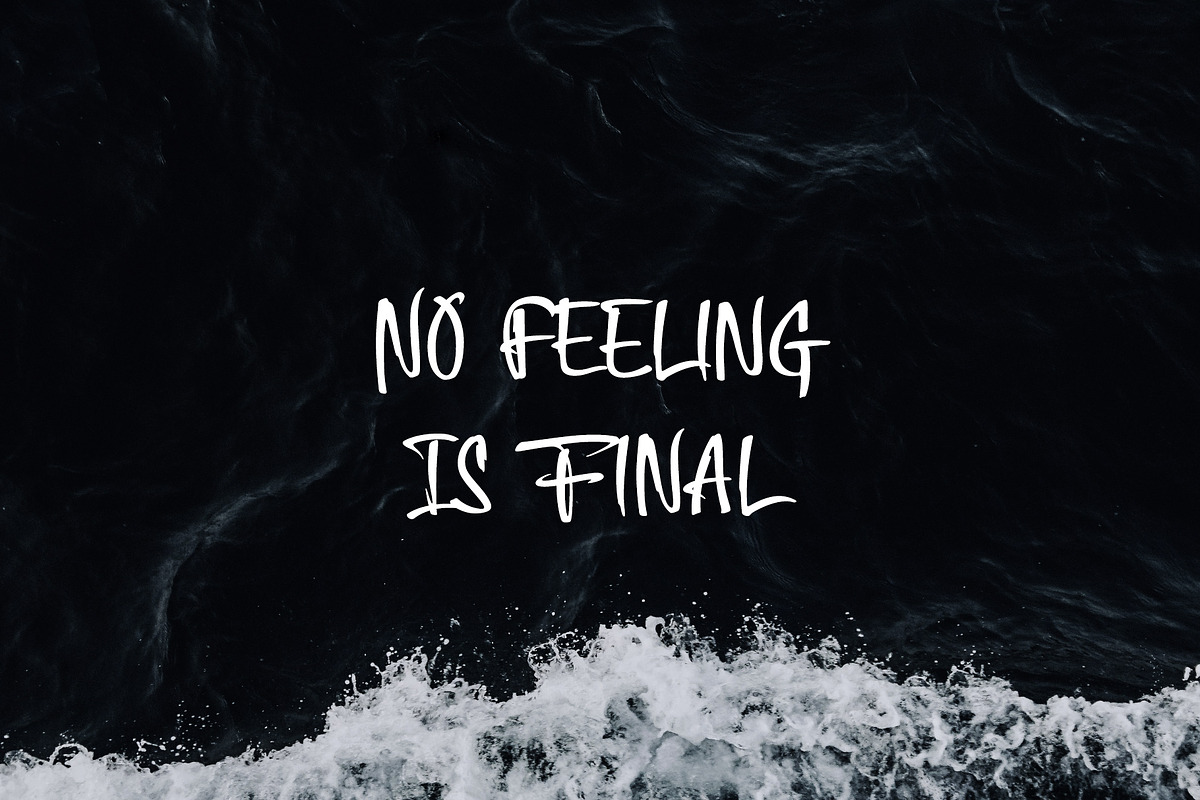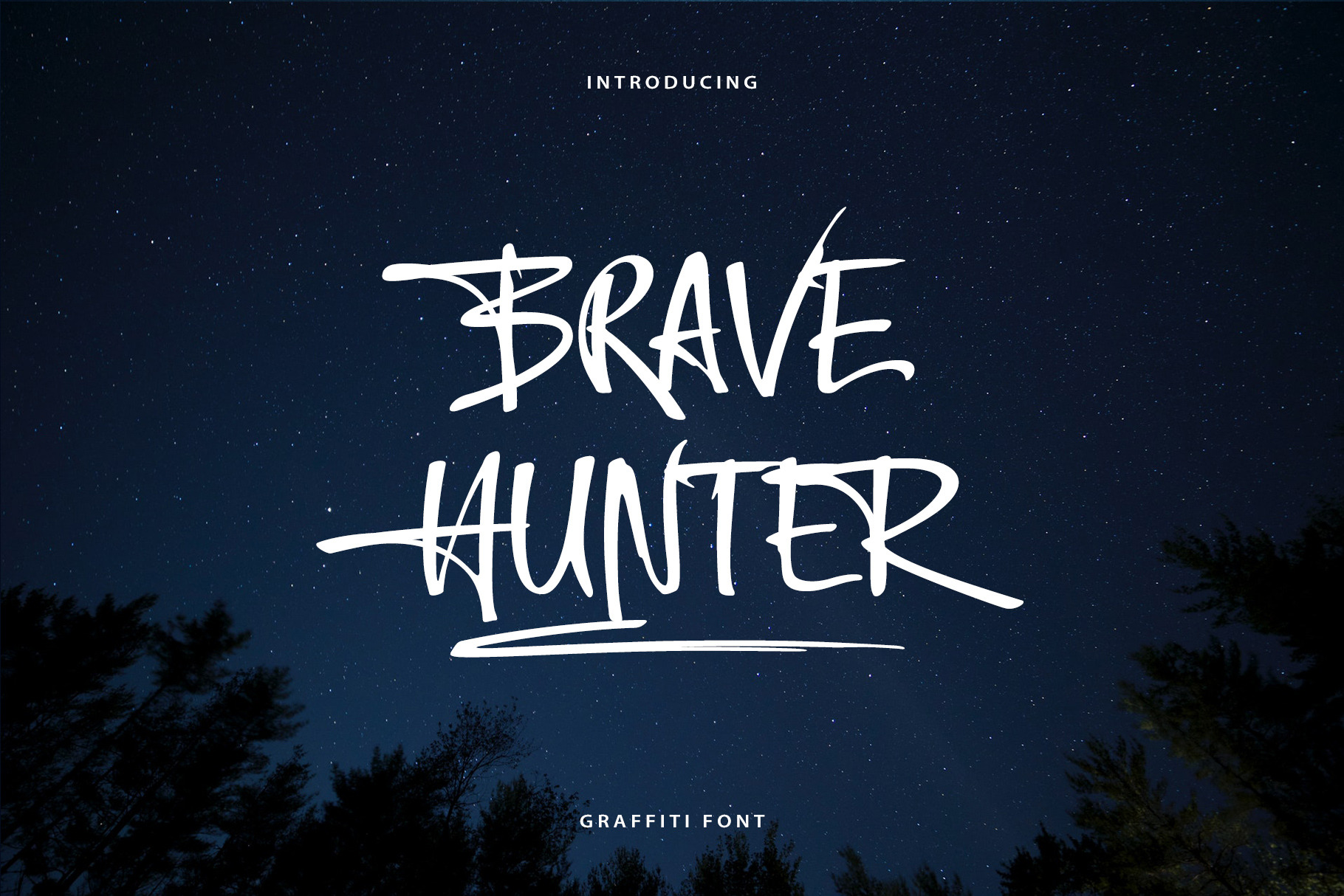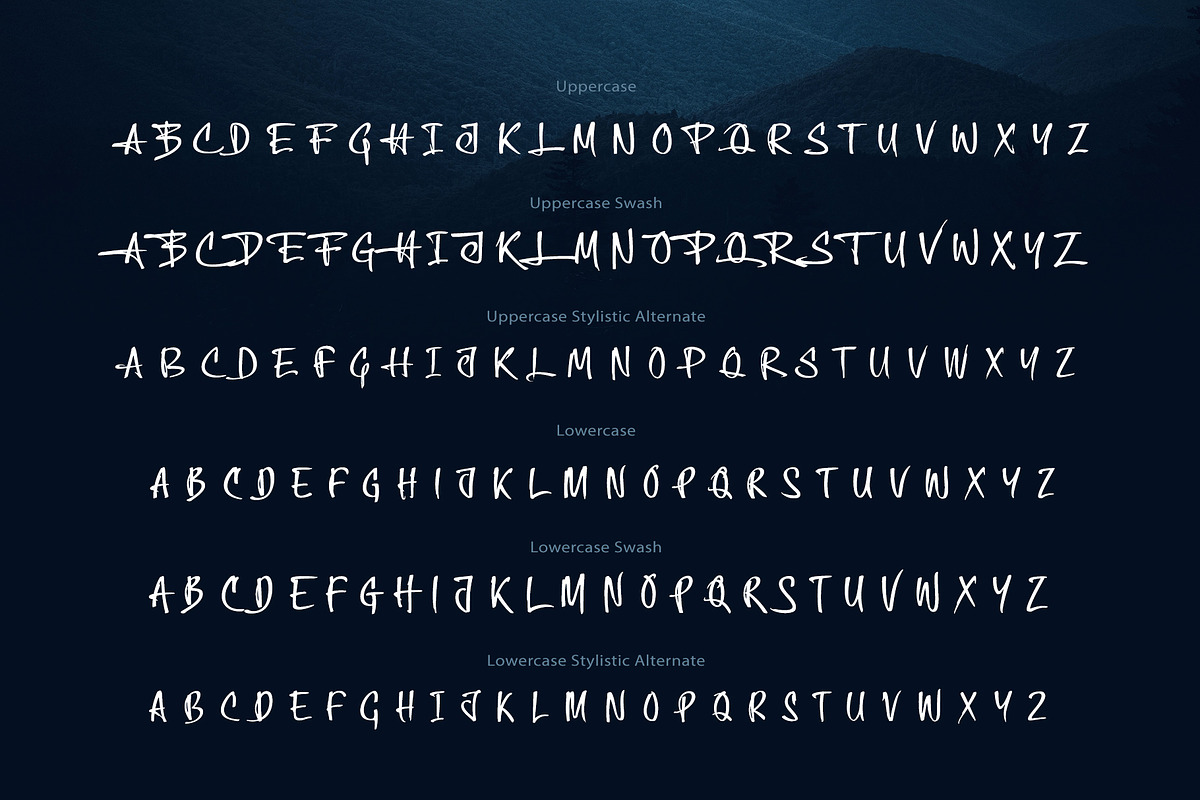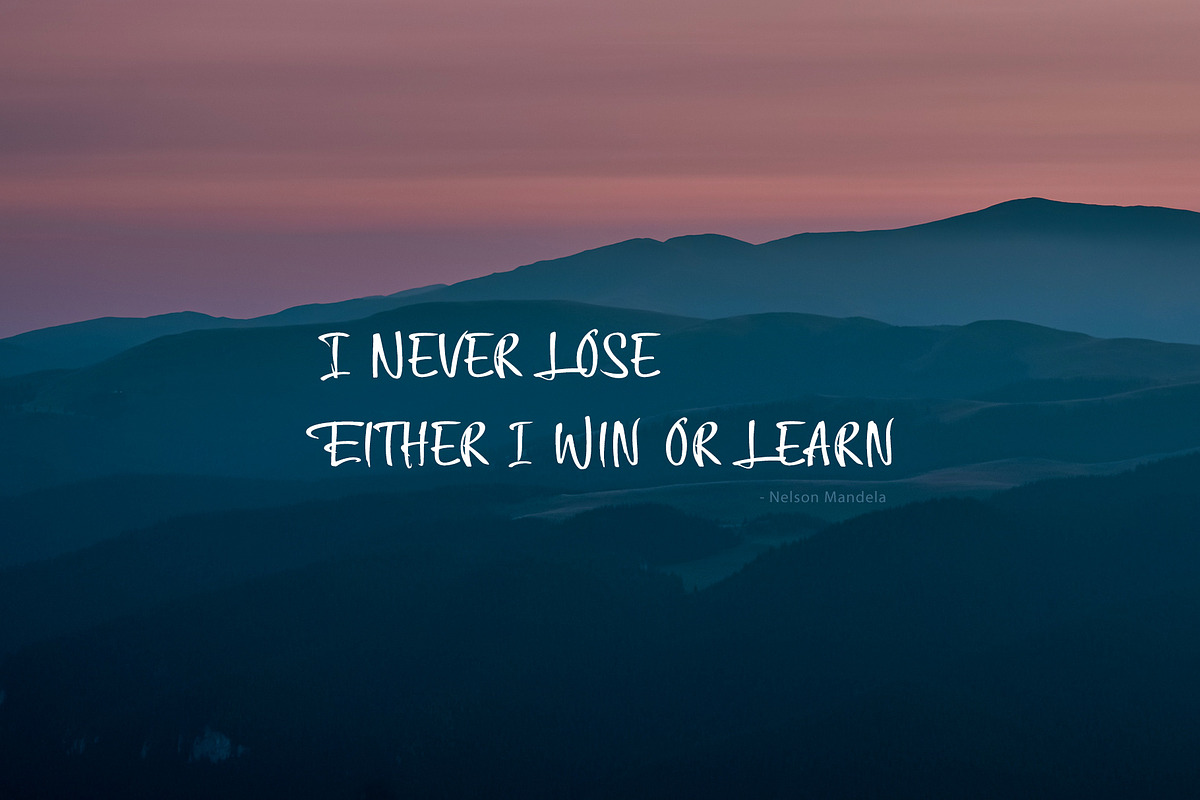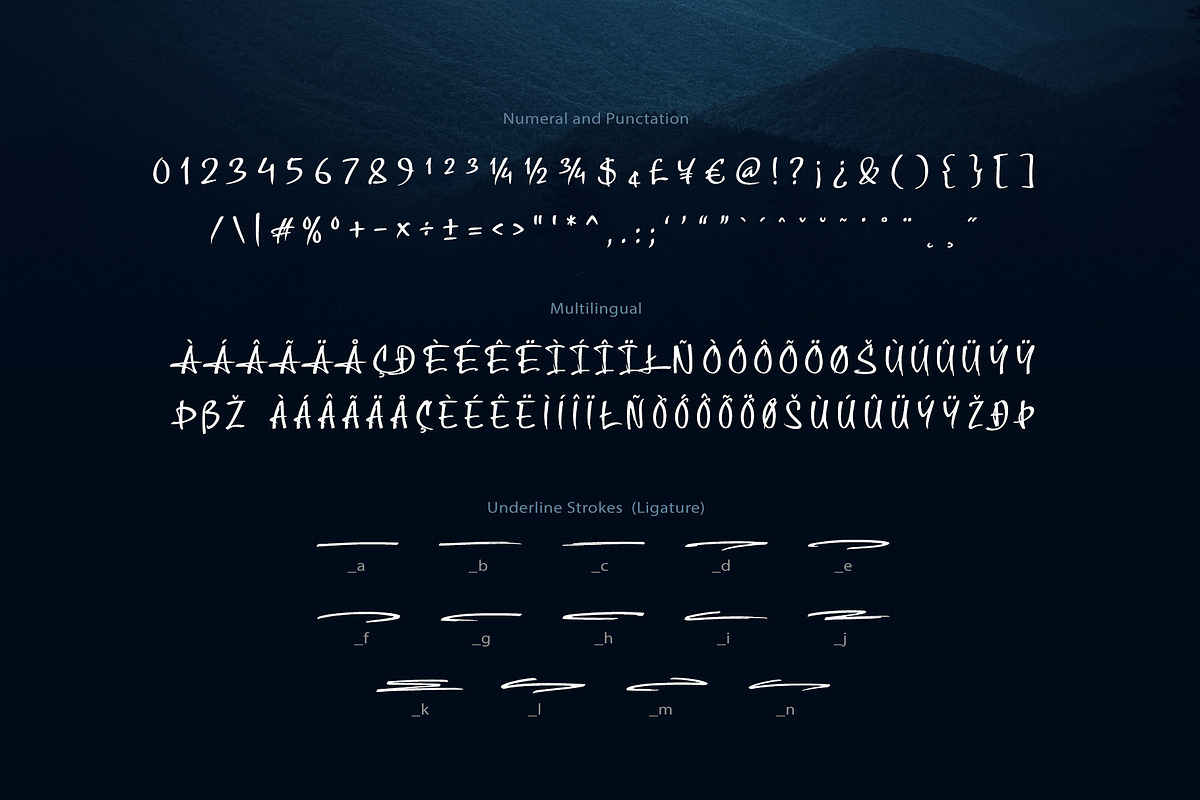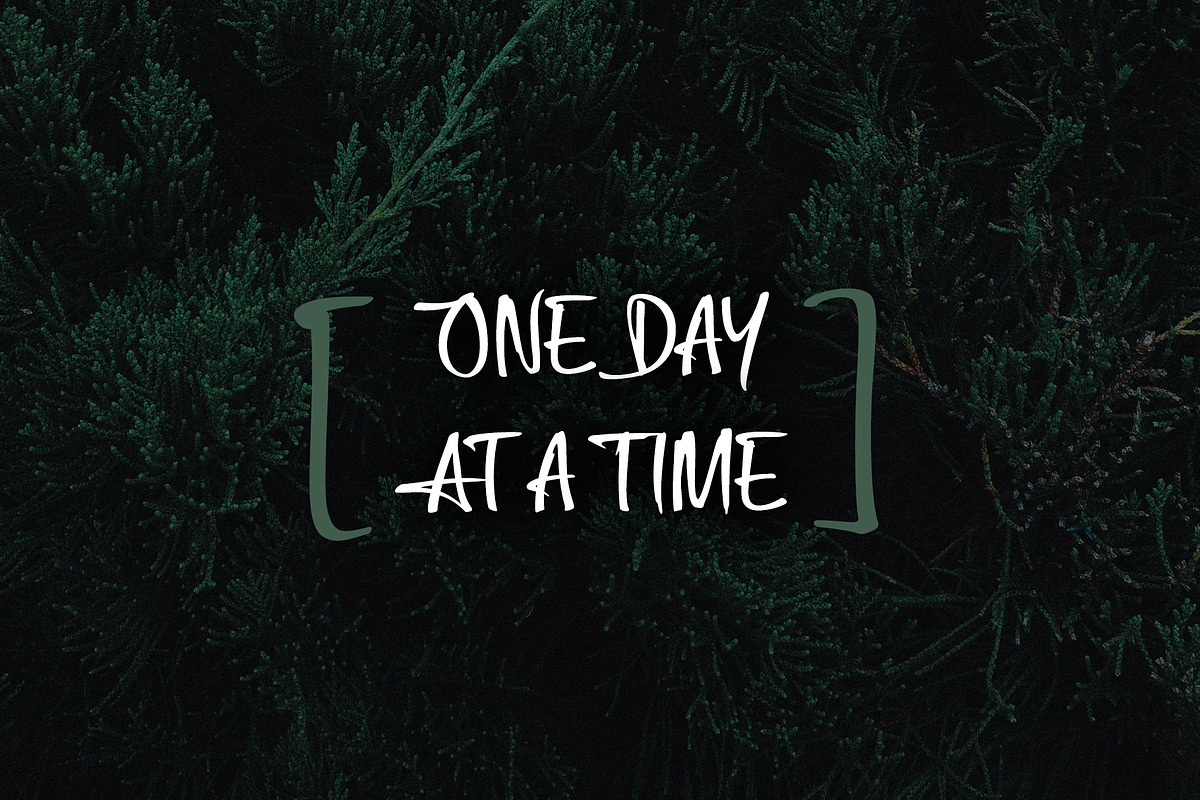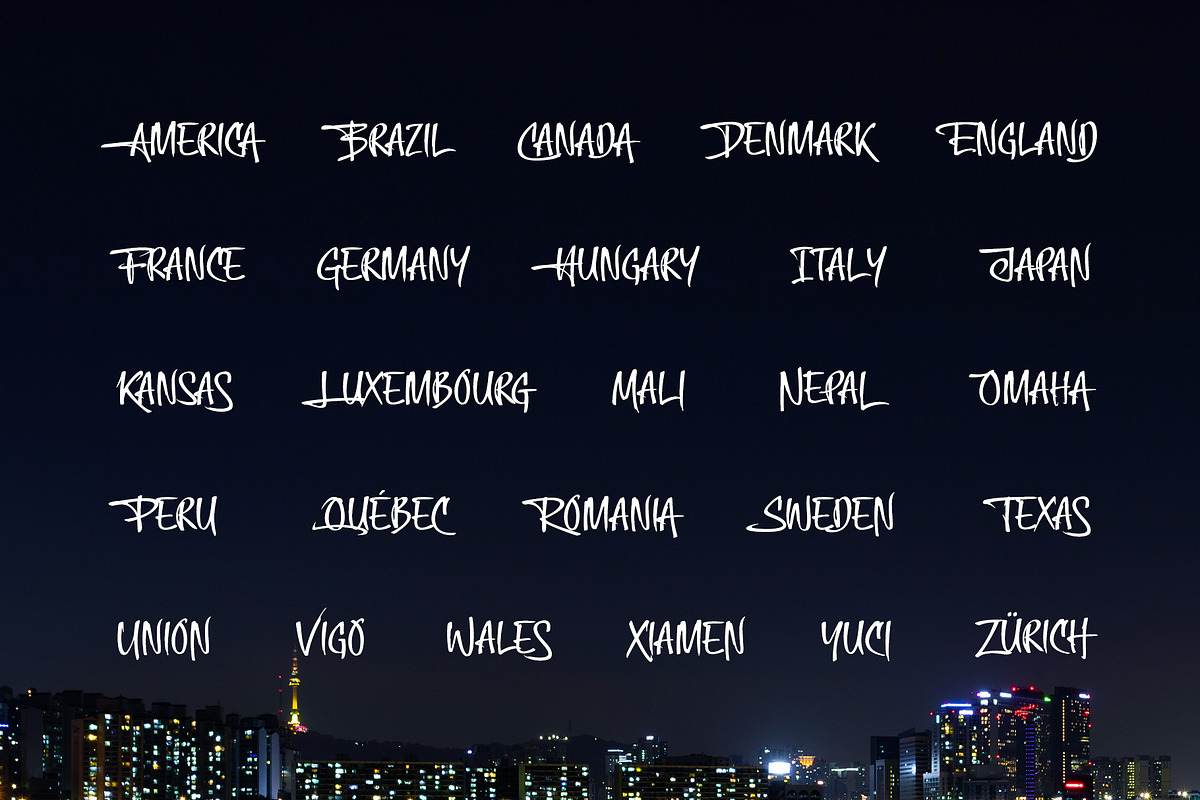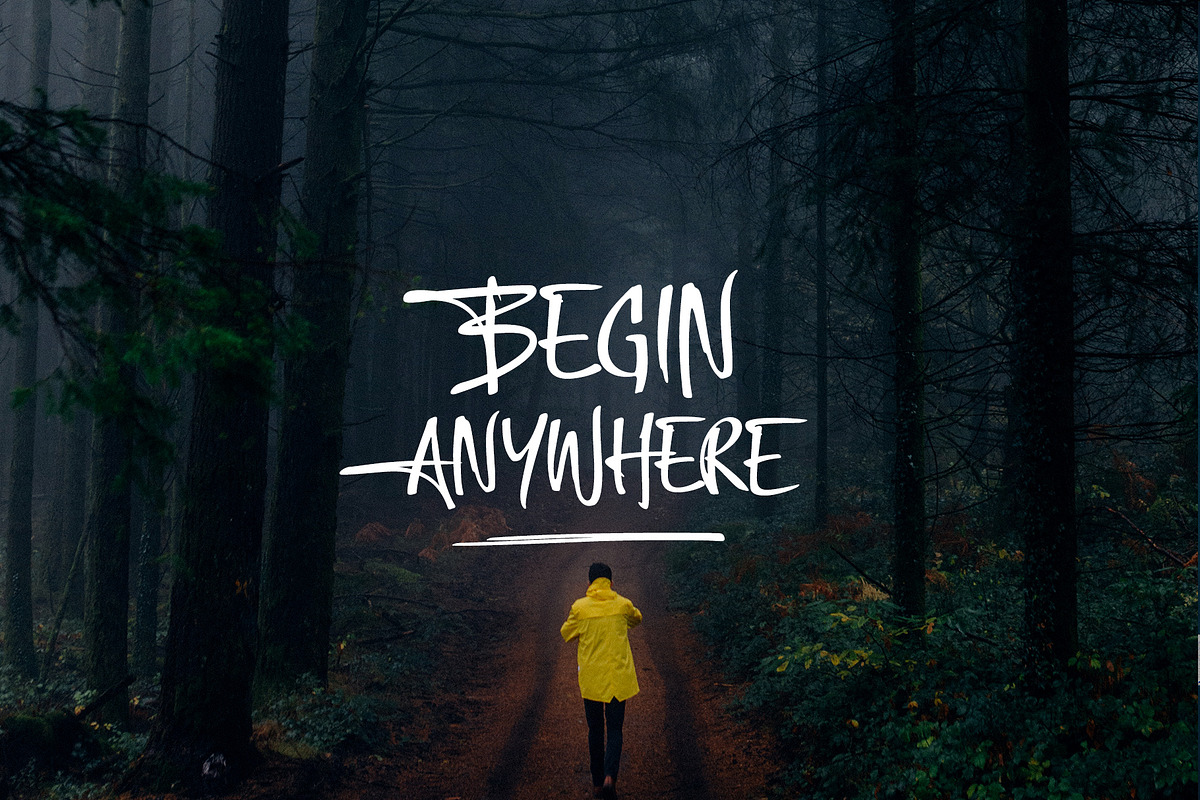
Brave Hunter Font
Brave Hunter is a nice handwritten Graffiti font. It gives a complete authentic feel on your text.
Total 315 glyphs available including alphabets, numerals, punctuation, stylistic alternate, swash and multilingual characters.
To type underline strokes press: _a _b _c _d _e ... (keep the 'ligature' button on)